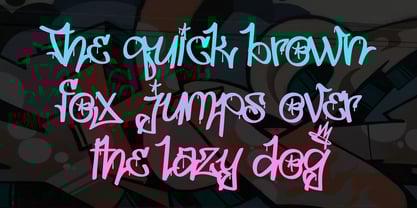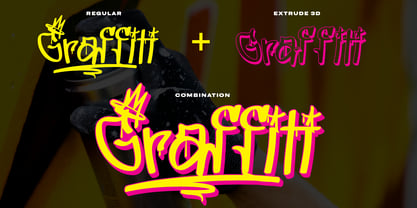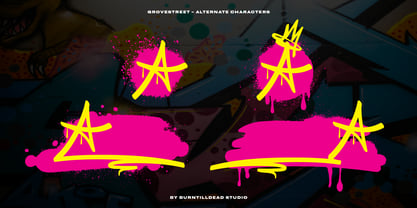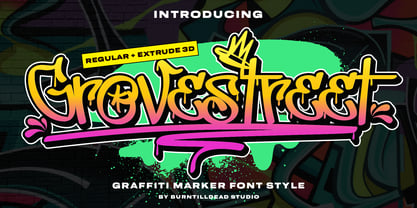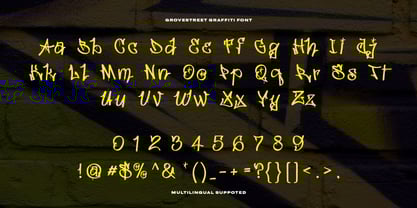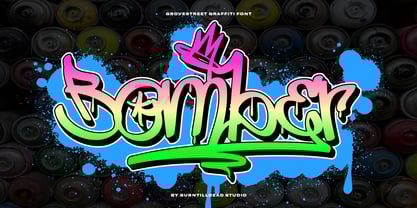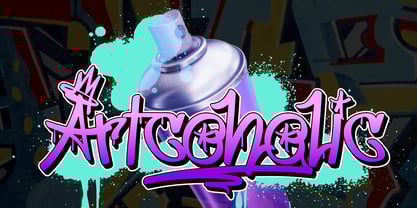
Grovestreet
von Burntilldead
Die Schriftfamilie Grovestreet wurde von Eric Kurniawan entworfen und von Burntilldead veröffentlicht. Grovestreet enthält 2 Stile und Familienpaketoptionen.
Introducing Grovestreet, a graffiti font style inspired by street art and graffiti culture. With dripping ink details and alternates, give it a rebellious and playful vibe also stands out effortlessly. Grovestreet comes with two styles: Grovestreet Regular and Grovestreet Shadow. This font is one of the most readable graffiti, bringing an unmistakable street style that’s bold and unique. This font is perfect for designing streetwear brands, music album covers, mural-inspired art, and any design projects with a street art or urban theme.